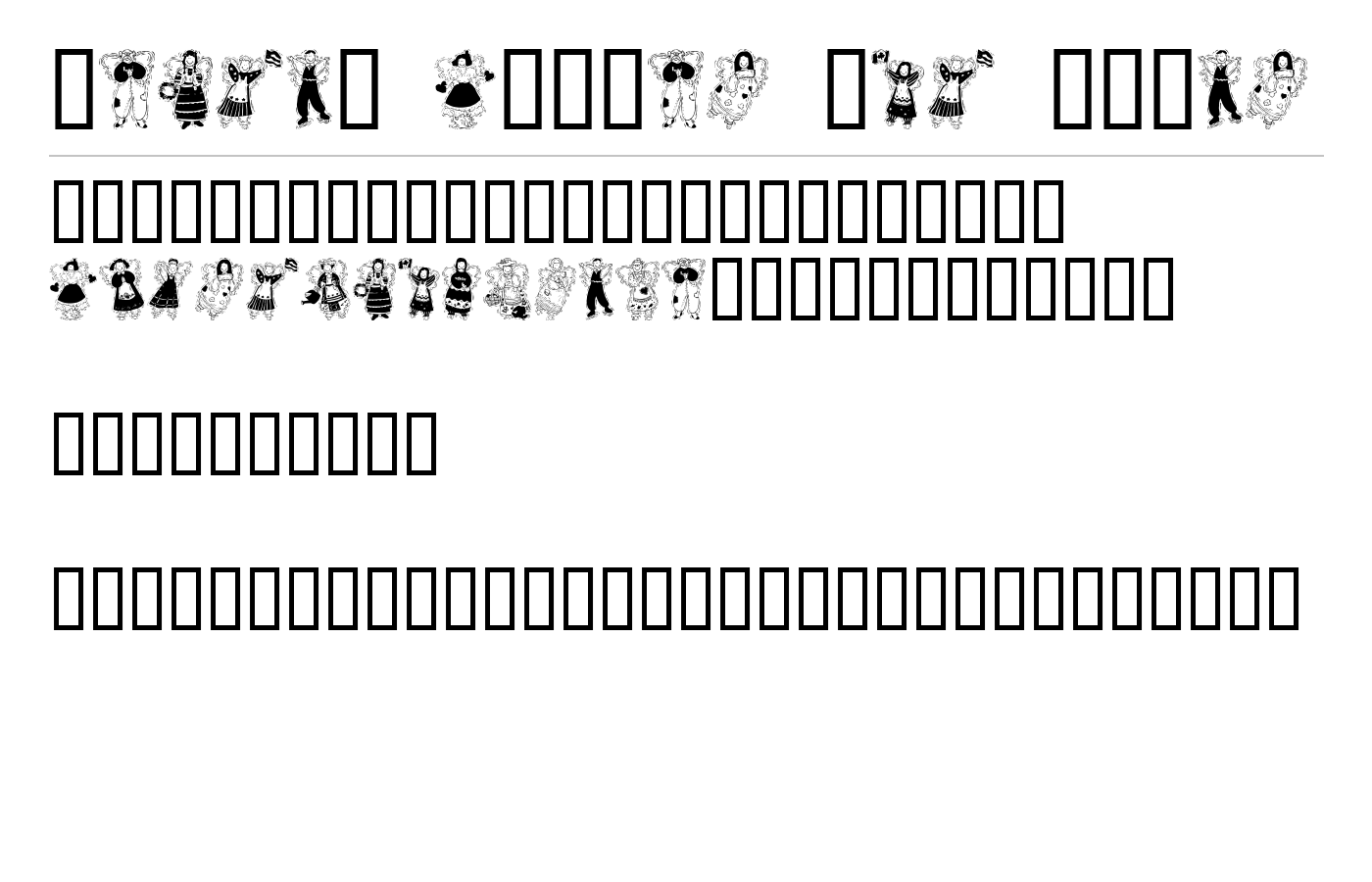
Angels Around the World is a decorative symbol font featuring charming, detailed angelic figures dressed in diverse cultural attire. Instead of traditional letterforms, each character is represented by a unique, illustrated angel, making it ideal for creative projects that need a whimsical or spiritual touch. This font works best for thematic designs, holiday cards, or playful branding where imagery, rather than text, conveys the message.
Angels around the world Font
About Angels around the world Font